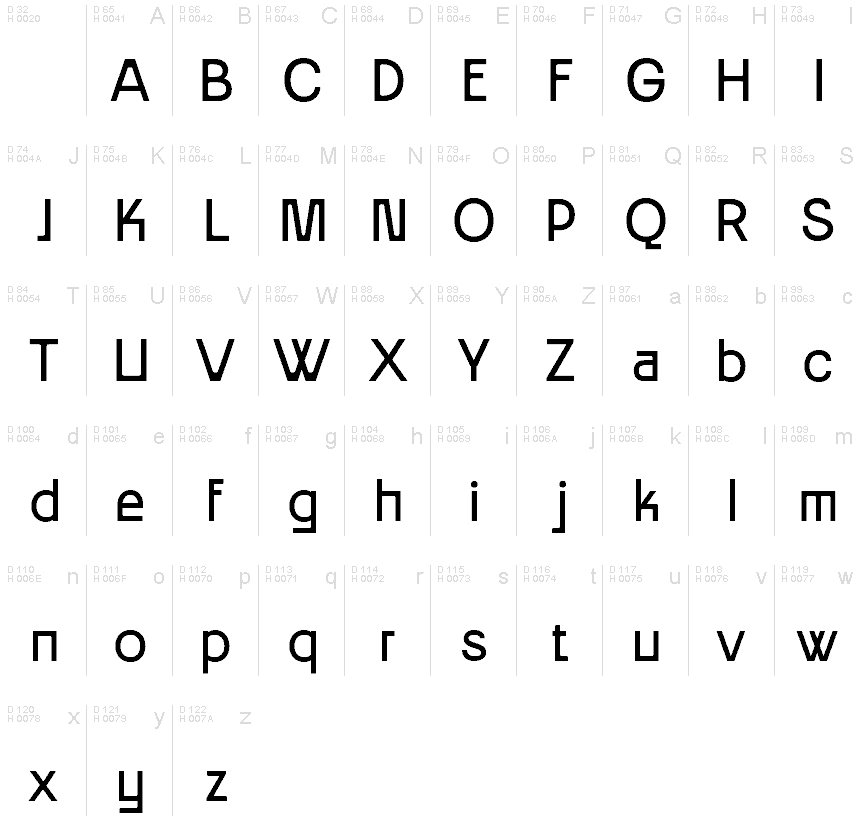
Maheni Demo Regular
Maheni font by Craft Supply Co is a geometric modern typeface. The minimalist display design represents a contemporary atmosphere that is expressed through its clean lines and subtle curves. The font features high legibility, perfect symmetry, and fine spacing.
The free display font can be used for book titles, magazine covers, advertisements, brochures, branding materials, package labels, stationary designs, fashion graphics or accessories branding. Use it also in signage projects for institutions like museums and universities.